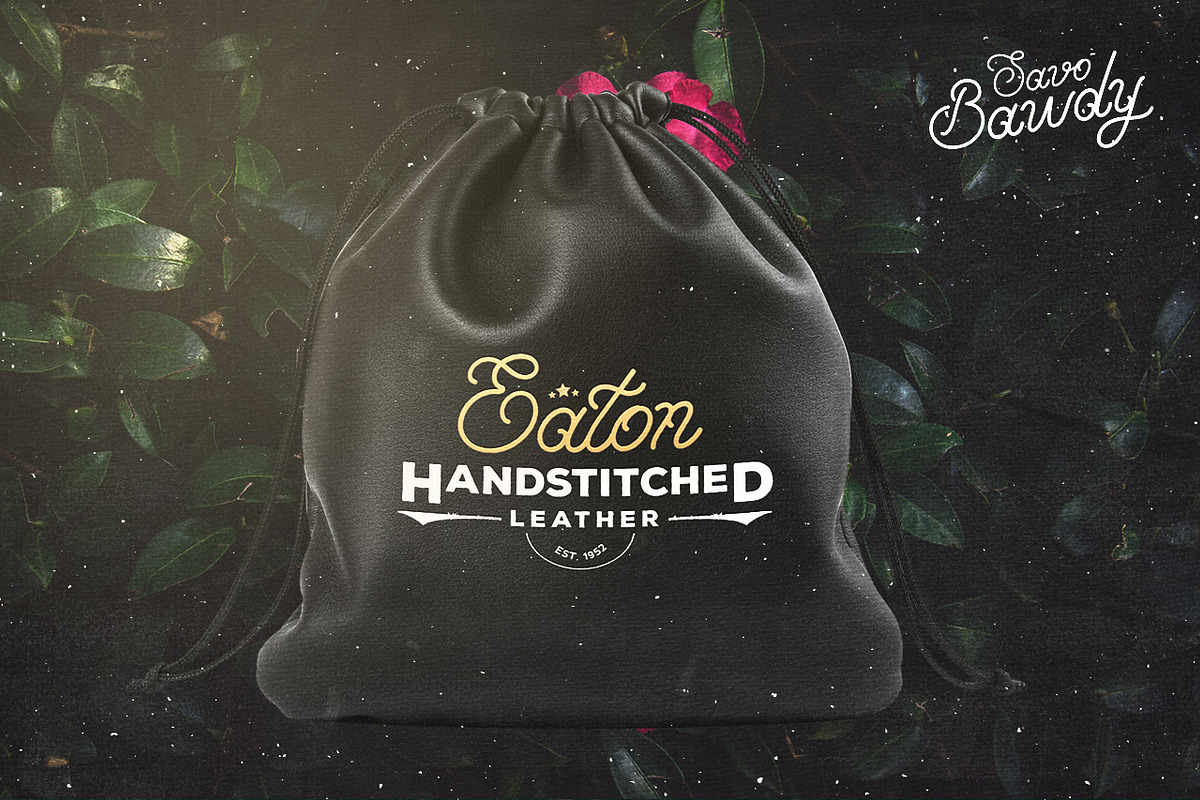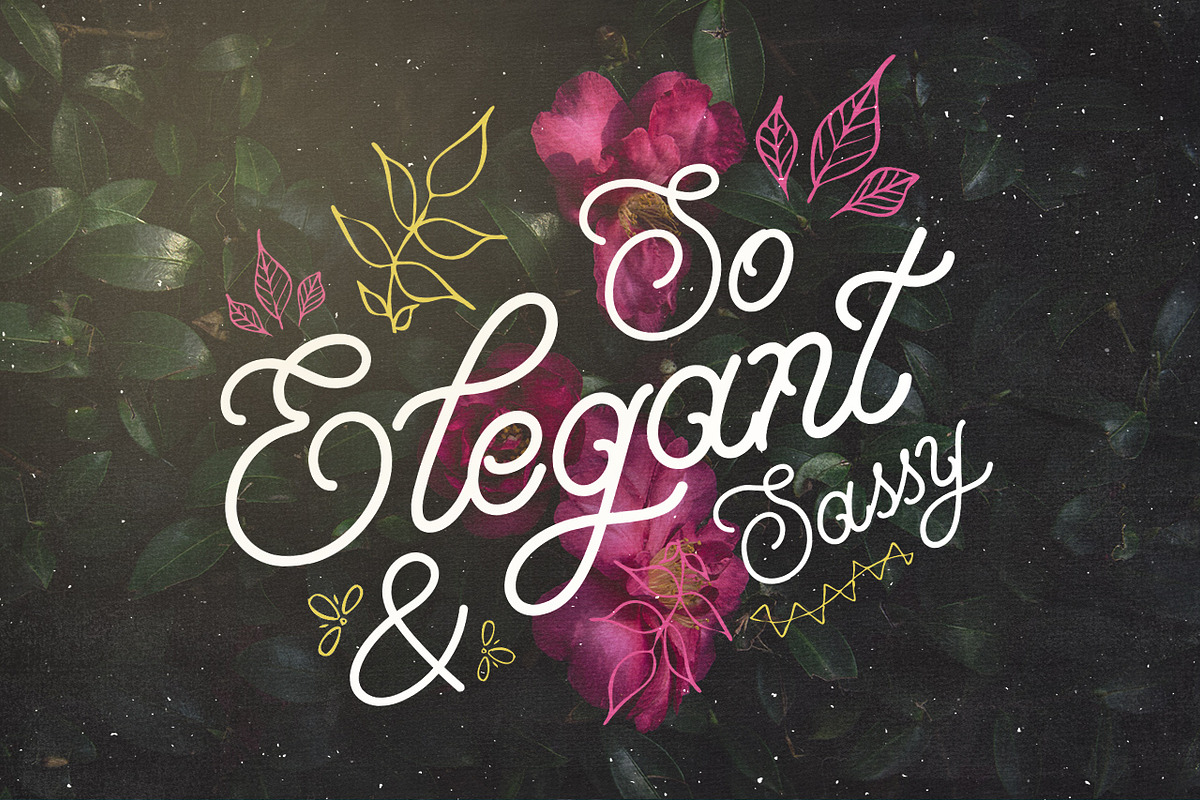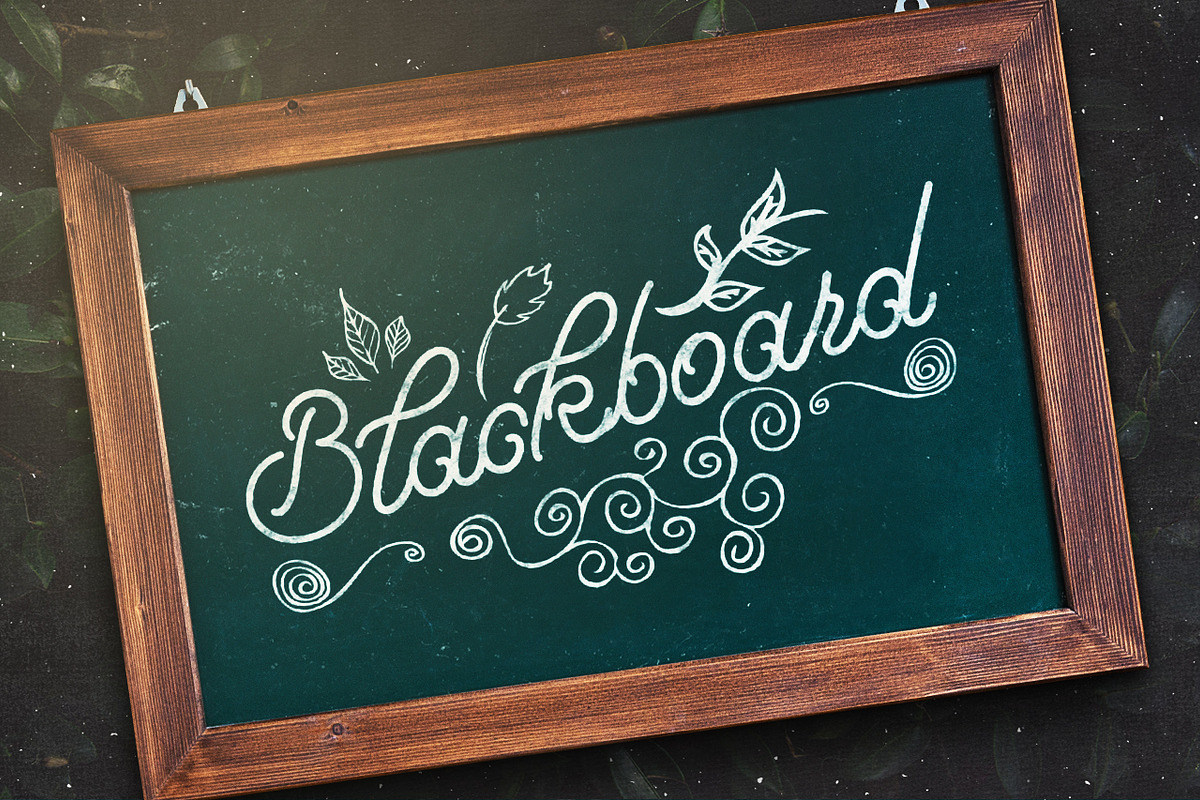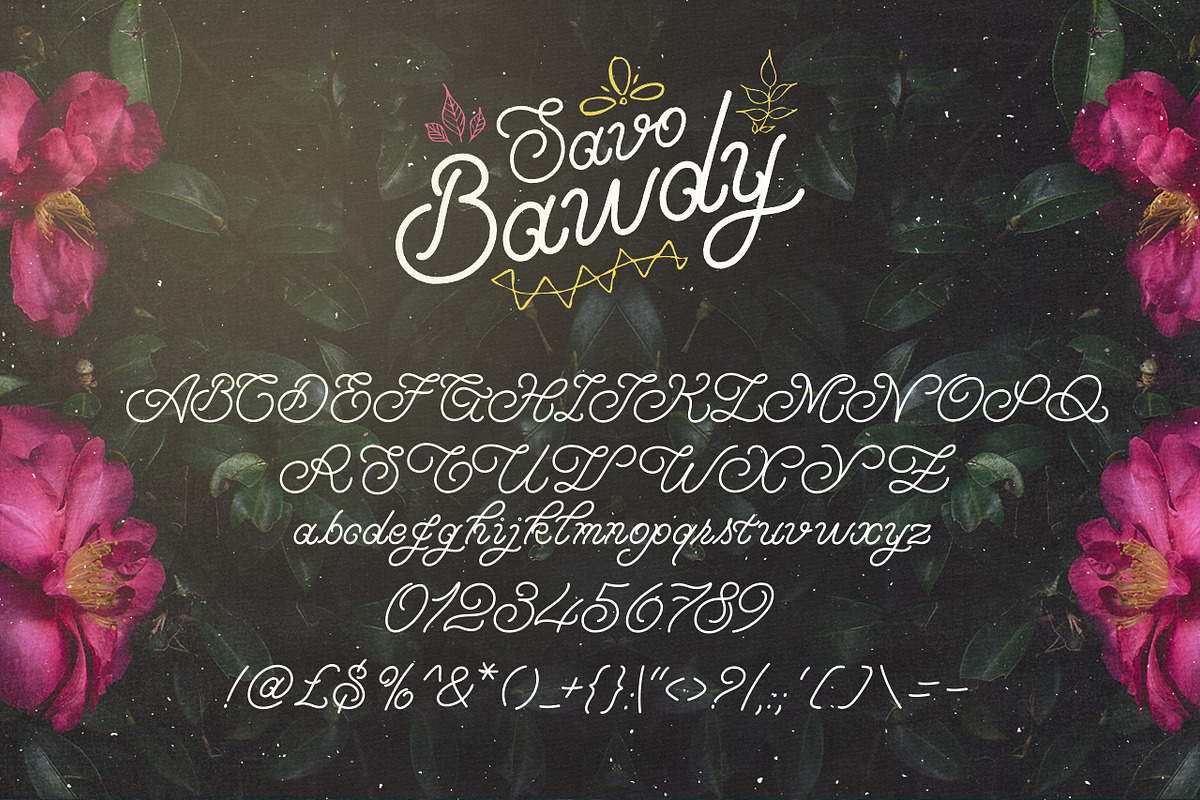
Savo Bawdy - Typeface
Introducing Savo Bawdy - A beautifully crafted Typeface!
Savo Bawdy is a Handcrafted Cursive Typeface with oodles of character! Perfect for Headline and Statement pieces of Typographic work, It has a playful, yet crisp feel to it.
In total there are 91 Glyphs/Characters including Uppercase, Lowercase, Numbers and Symbols, and we will soon be adding multilingual support too! :)